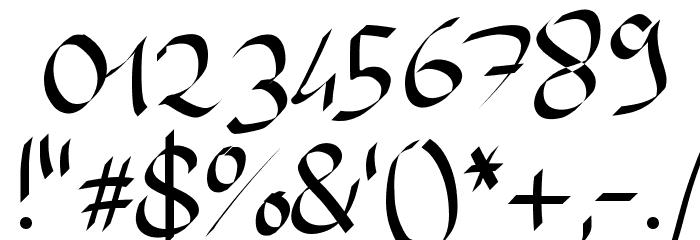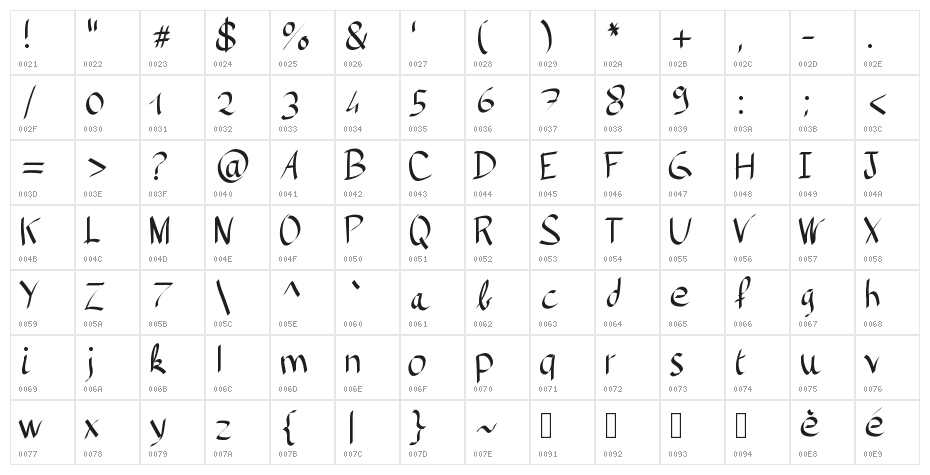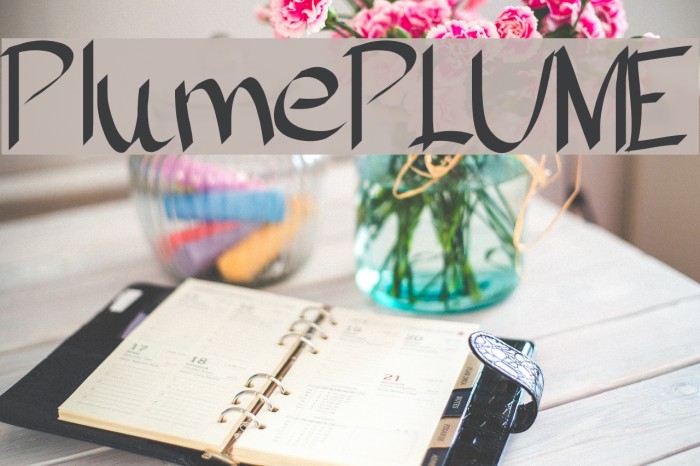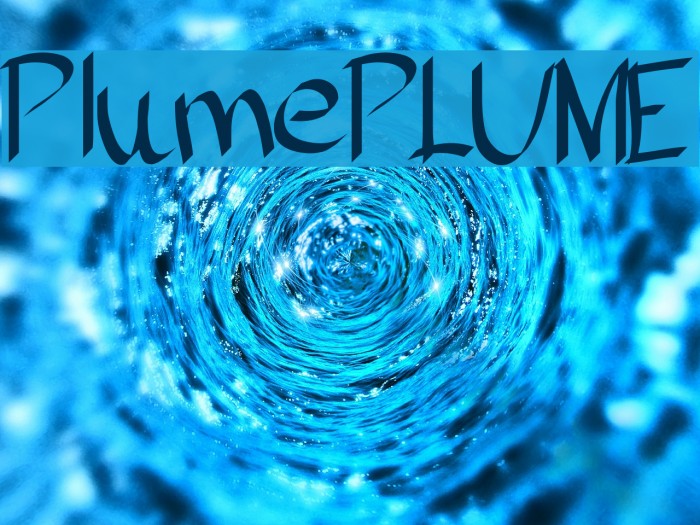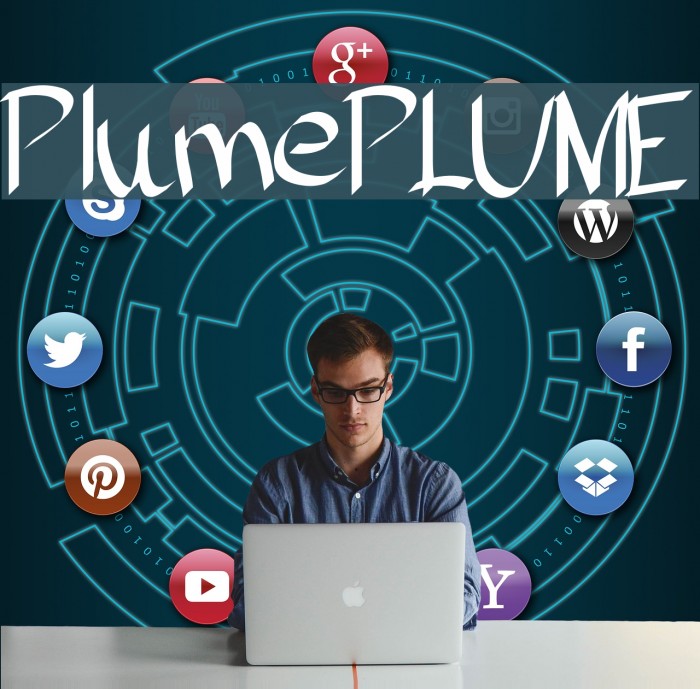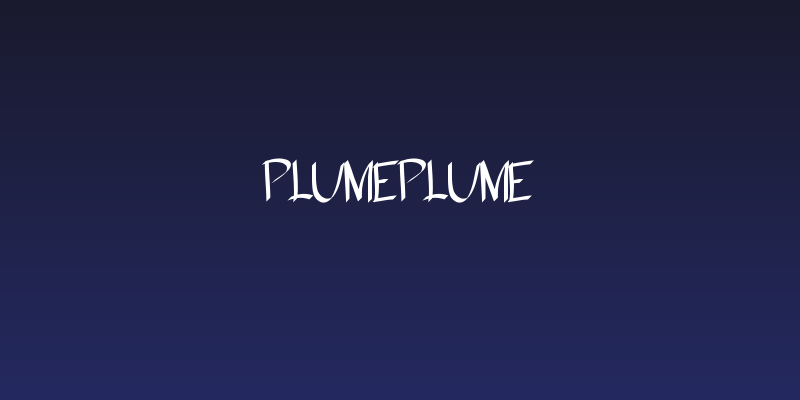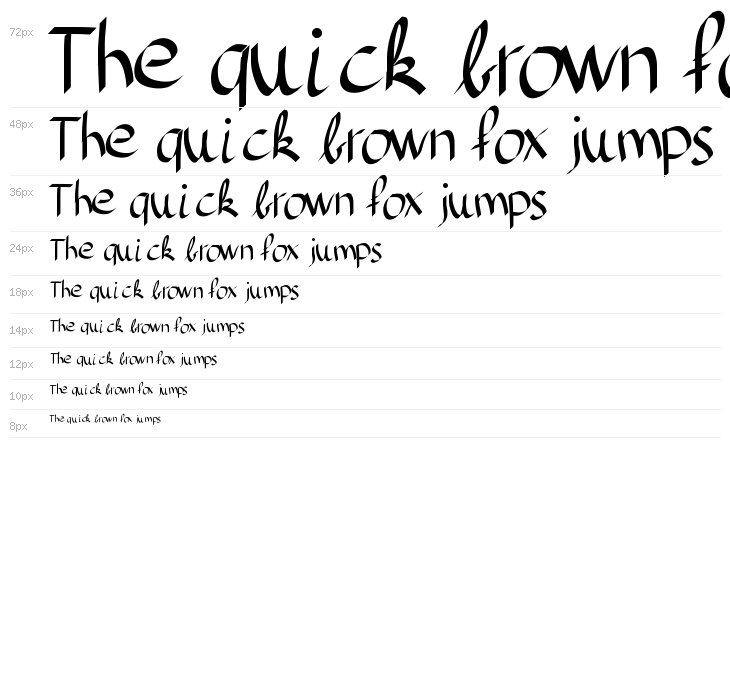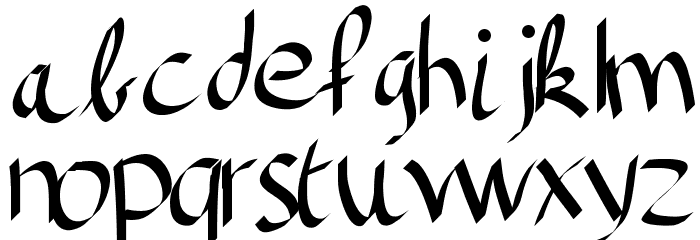
PlumePLUME Font
PlumePLUME Description
This font features a dynamic and expressive style, characterized by its bold, sweeping strokes and a sense of movement reminiscent of calligraphy. The uppercase letters are particularly striking, with sharp angles and a slightly condensed form that adds to their dramatic flair. The lowercase letters maintain a consistent flow, with some characters featuring unique, elongated tails that enhance the font's artistic appeal. Numbers and special characters are crafted with the same attention to detail, ensuring a cohesive look across all elements. This font's high contrast between thick and thin strokes adds to its visual impact, making it ideal for projects that require a strong, artistic statement.